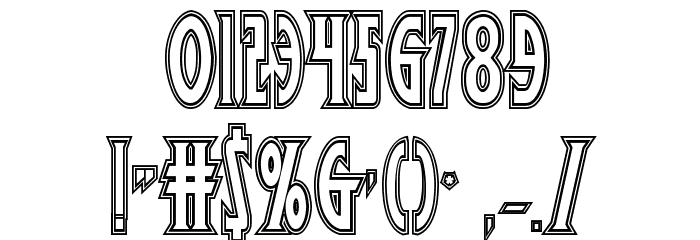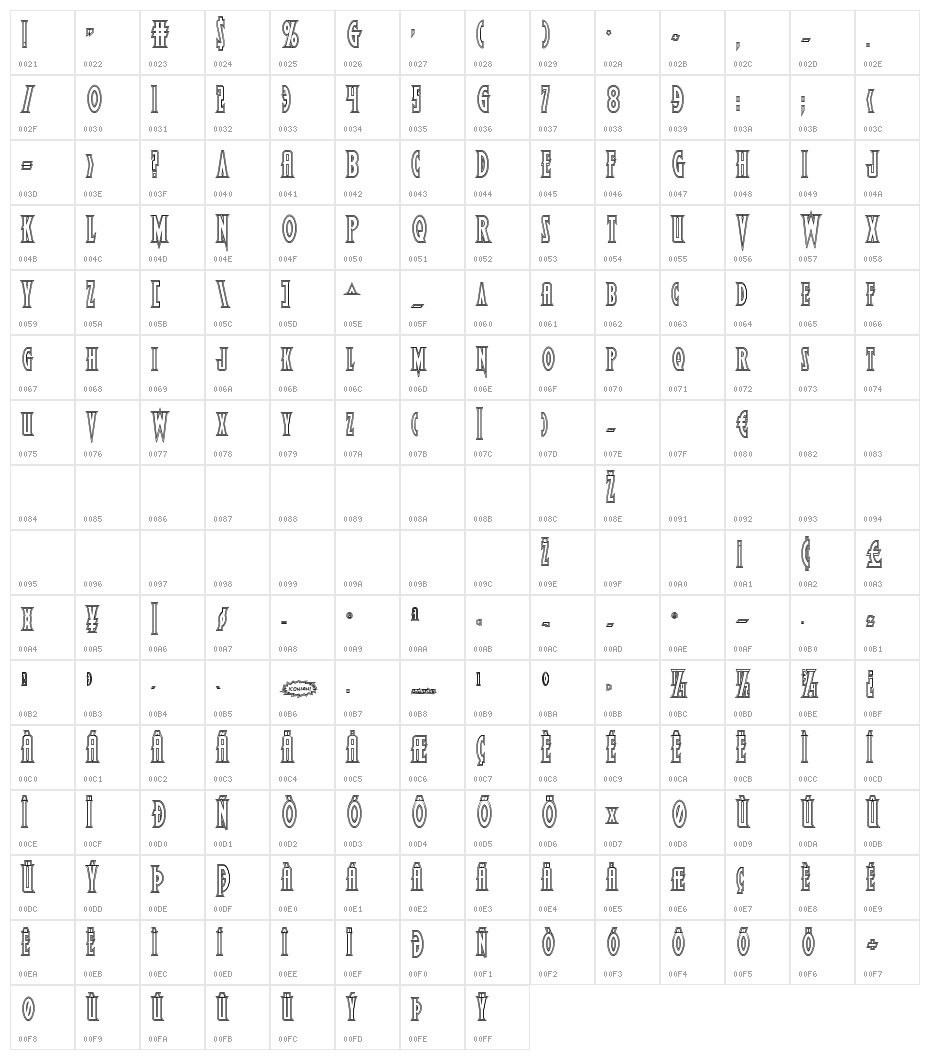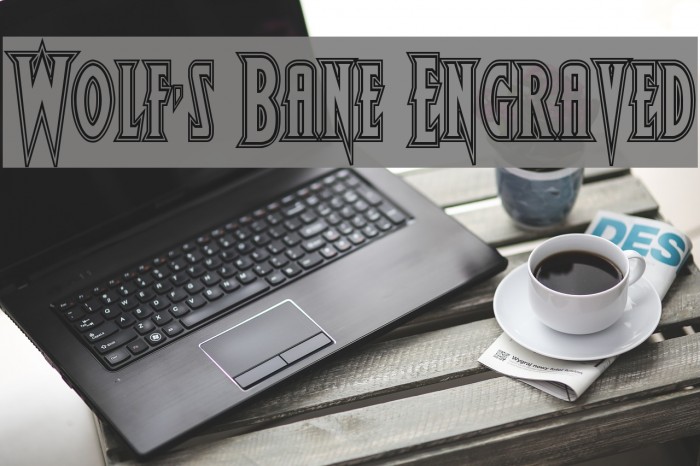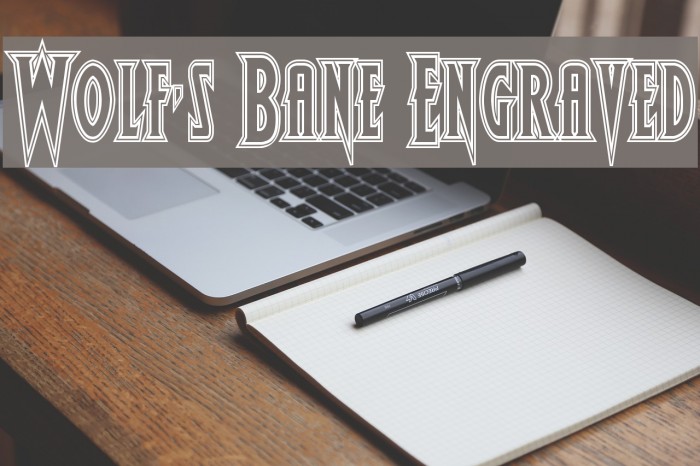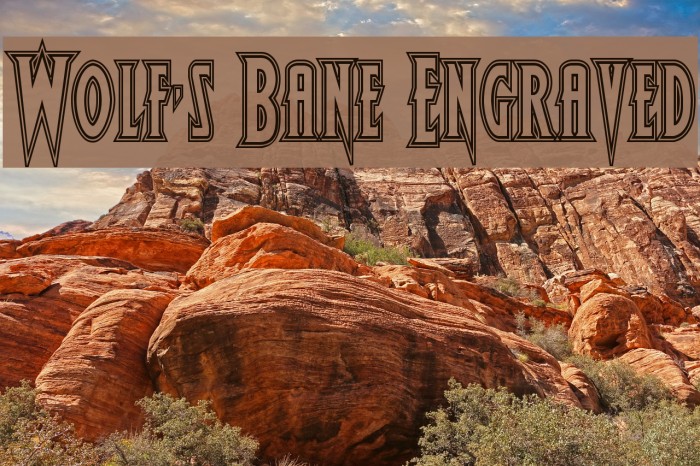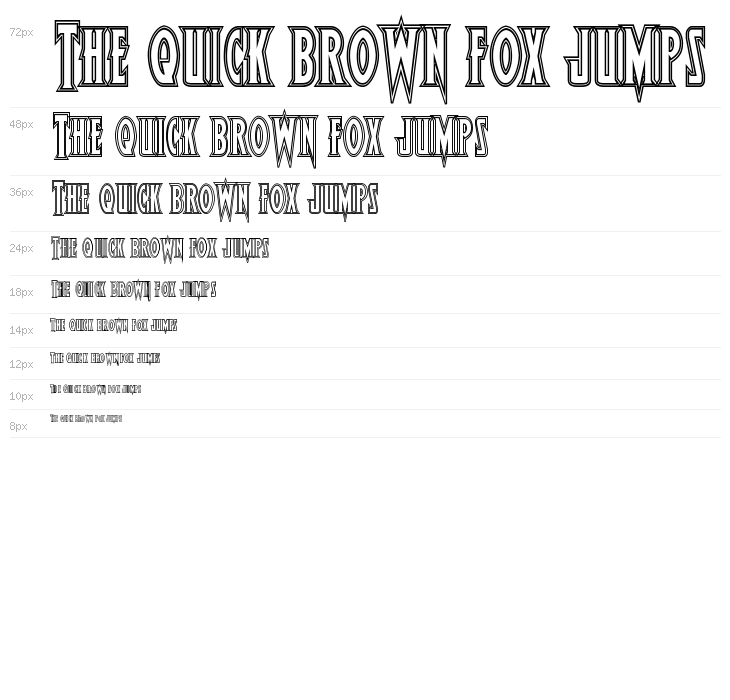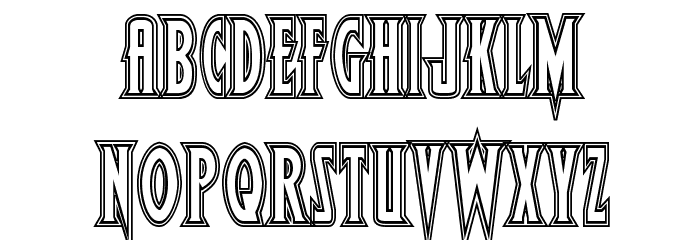
Wolf's Bane Engraved Font
Wolf's Bane Engraved Description
This font features a bold, decorative style with sharp, angular edges and a three-dimensional engraved effect. The uppercase letters are particularly striking, with a strong presence that commands attention. The lowercase letters maintain the same boldness, ensuring consistency throughout. Numbers and special characters are equally stylized, making them suitable for a variety of creative applications. The font's unique design is reminiscent of vintage signage or classic horror themes, adding a dramatic flair to any project.
| Overall Style | Vintage, Decorative |
| Proposed Projects | Ideal for use in horror-themed posters, vintage signage, book covers, or any project requiring a dramatic and eye-catching typeface. |